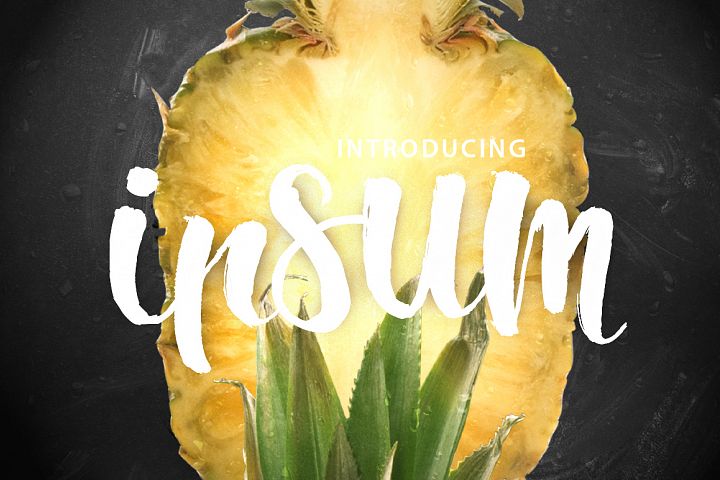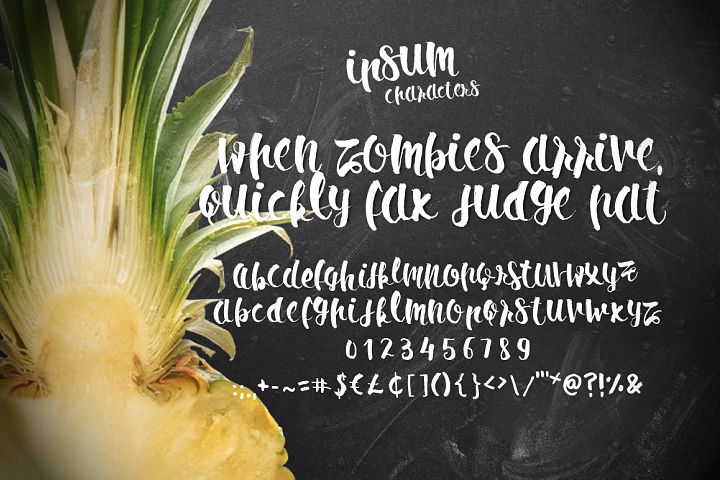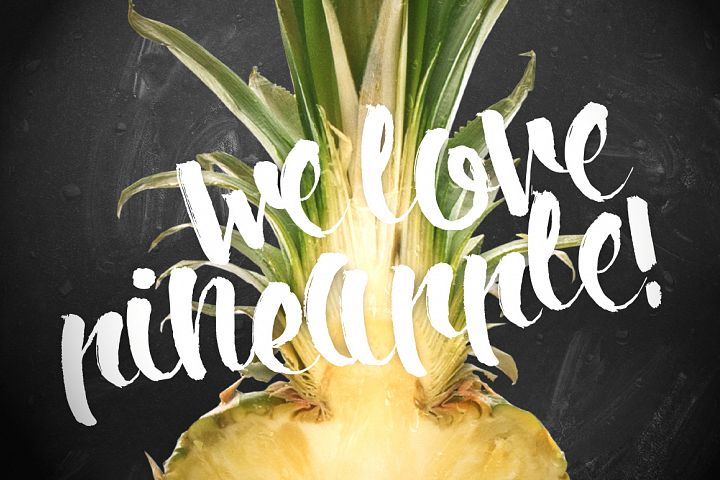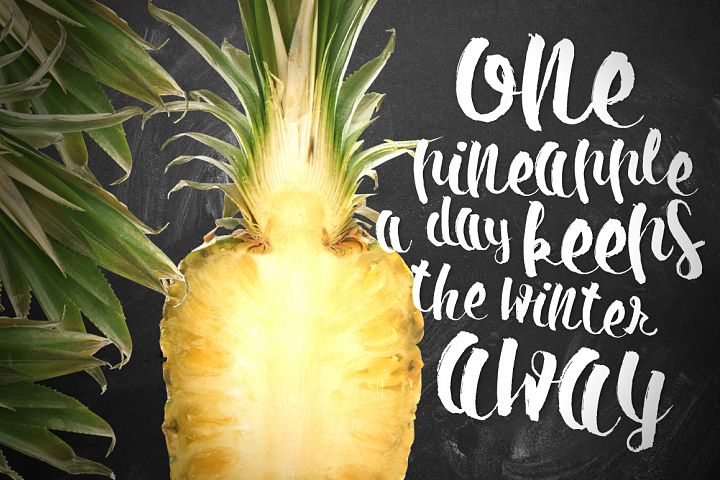
Ipsum Script Font
About Ipsum Script Font
Ipsum Script is an amazing modern brush script font. This script type font can be uses for various purposes such as headings, posters, t-shirts, logos, labels, book covers and it’s ideal for summer projects!